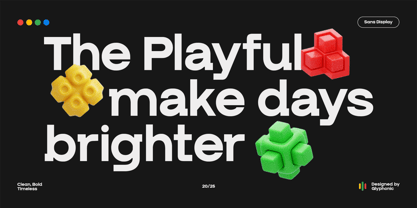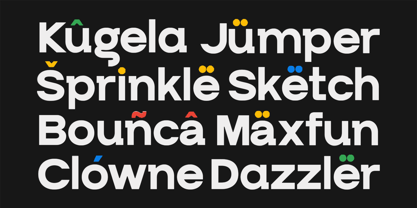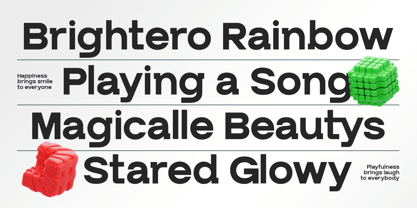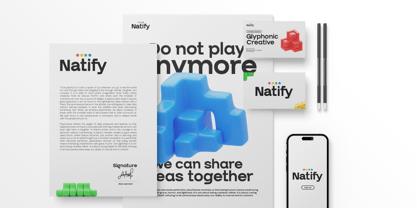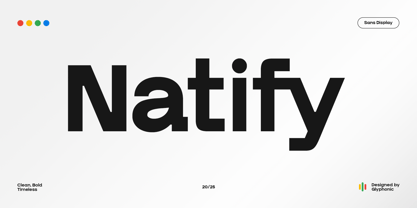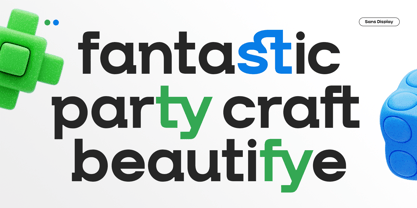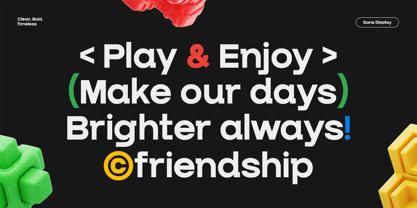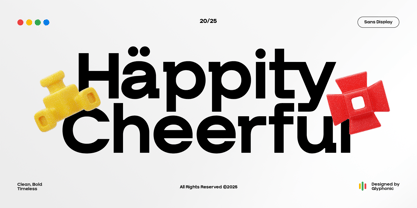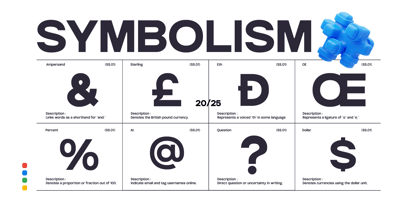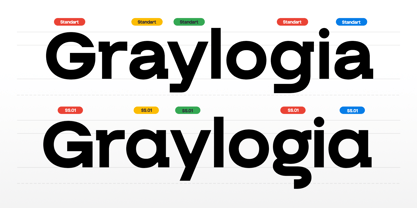
GC Natify
by Onyx Studio
The GC Natify Font Family was designed by Muhammad Hafiizh Solana and published by Onyx Studio. GC Natify contains 2 styles and family package options. More about this family
GC Natify — Bold Modern Sans is a contemporary sans serif typeface designed for clarity, strength, and versatility. With its clean geometric structure and confident bold strokes, it delivers a powerful voice that adapts seamlessly across digital and print media. Crafted to embody simplicity without losing character, it’s ideal for branding, editorial layouts, tech-driven projects, and striking visual identities. Balanced proportions and precise detailing make GC Natify both adaptable and distinctive. Whether you’re designing sleek interfaces, impactful headlines, or minimalistic posters, this font brings boldness, modernity, and timeless elegance to your typography. Features: Uppercase & Lowercase Numbers & Punctuation Modern Geometric Construction Multilingual Support (170+ Languages) Bring clarity, boldness, and modern elegance to your designs with GC Natify.
Designers: Muhammad Hafiizh Solana
Foundry: Onyx Studio